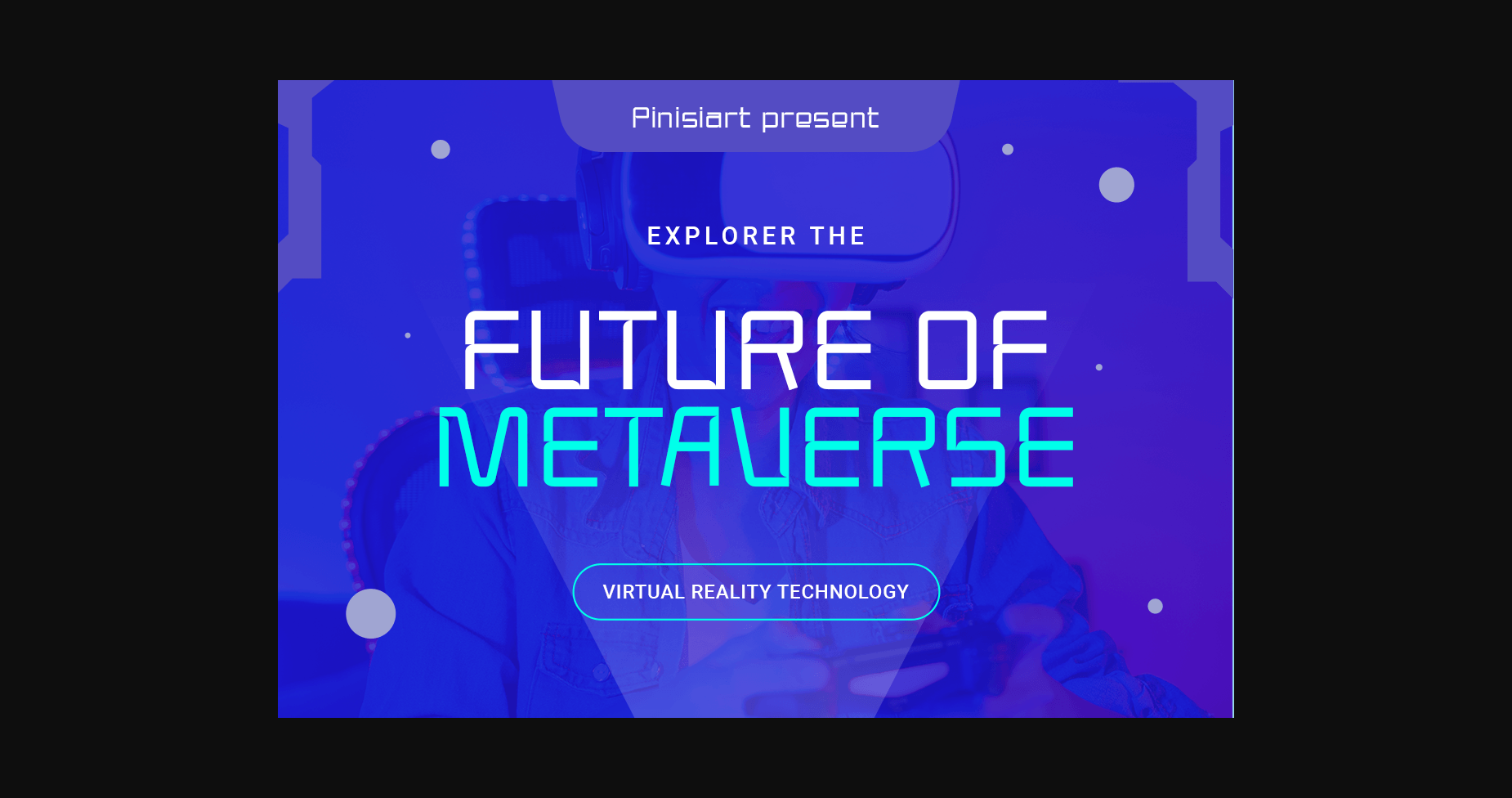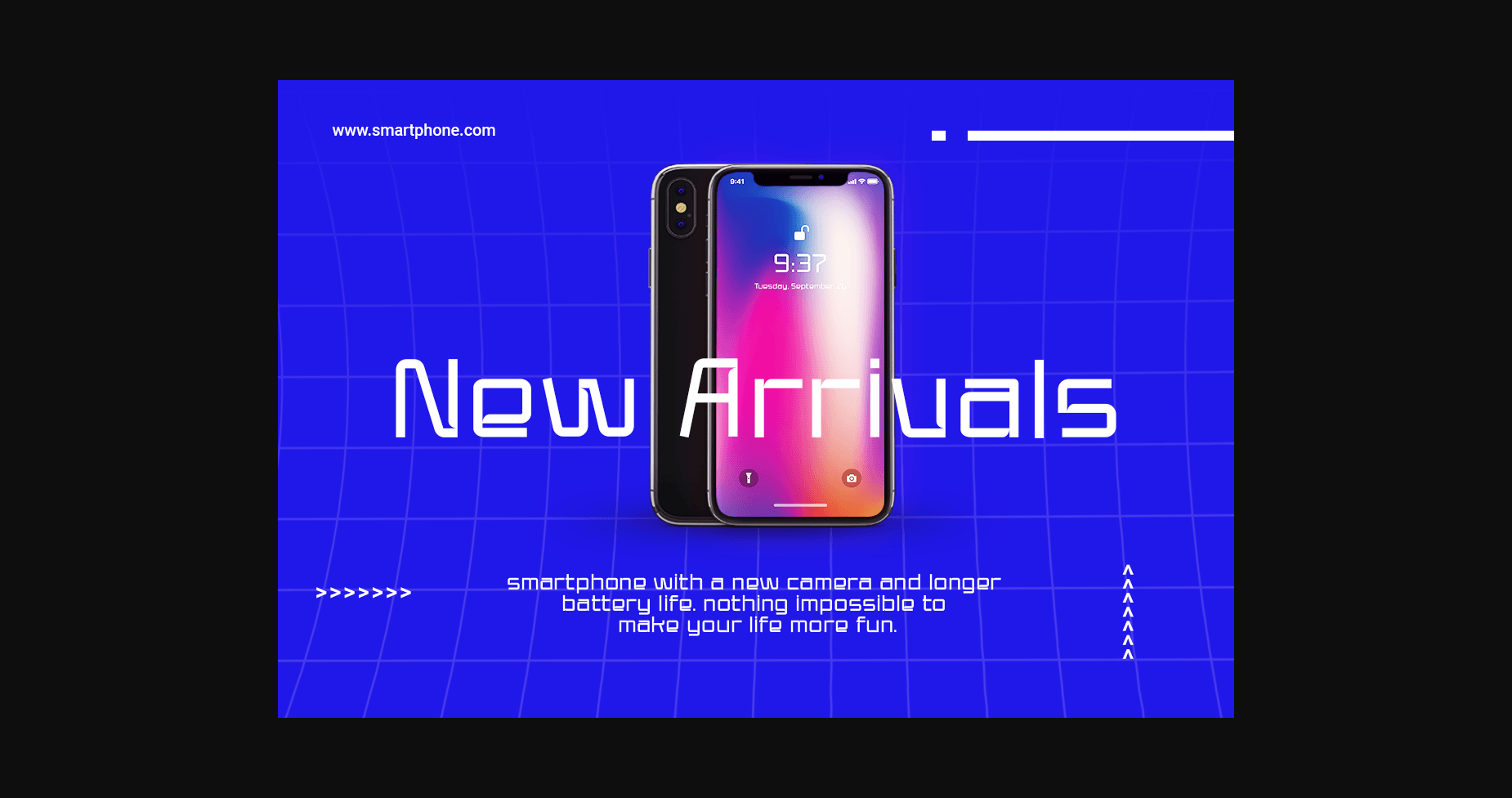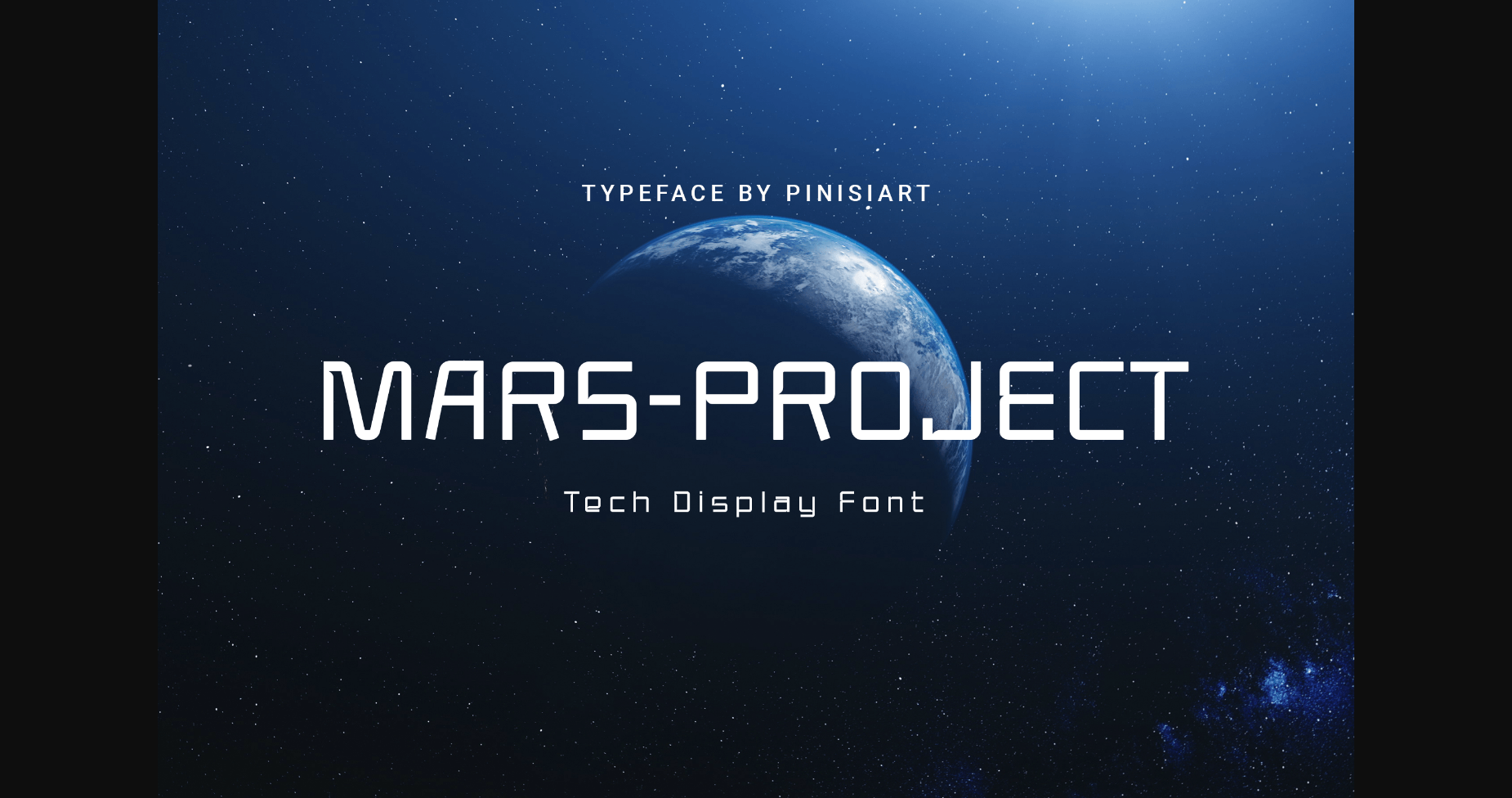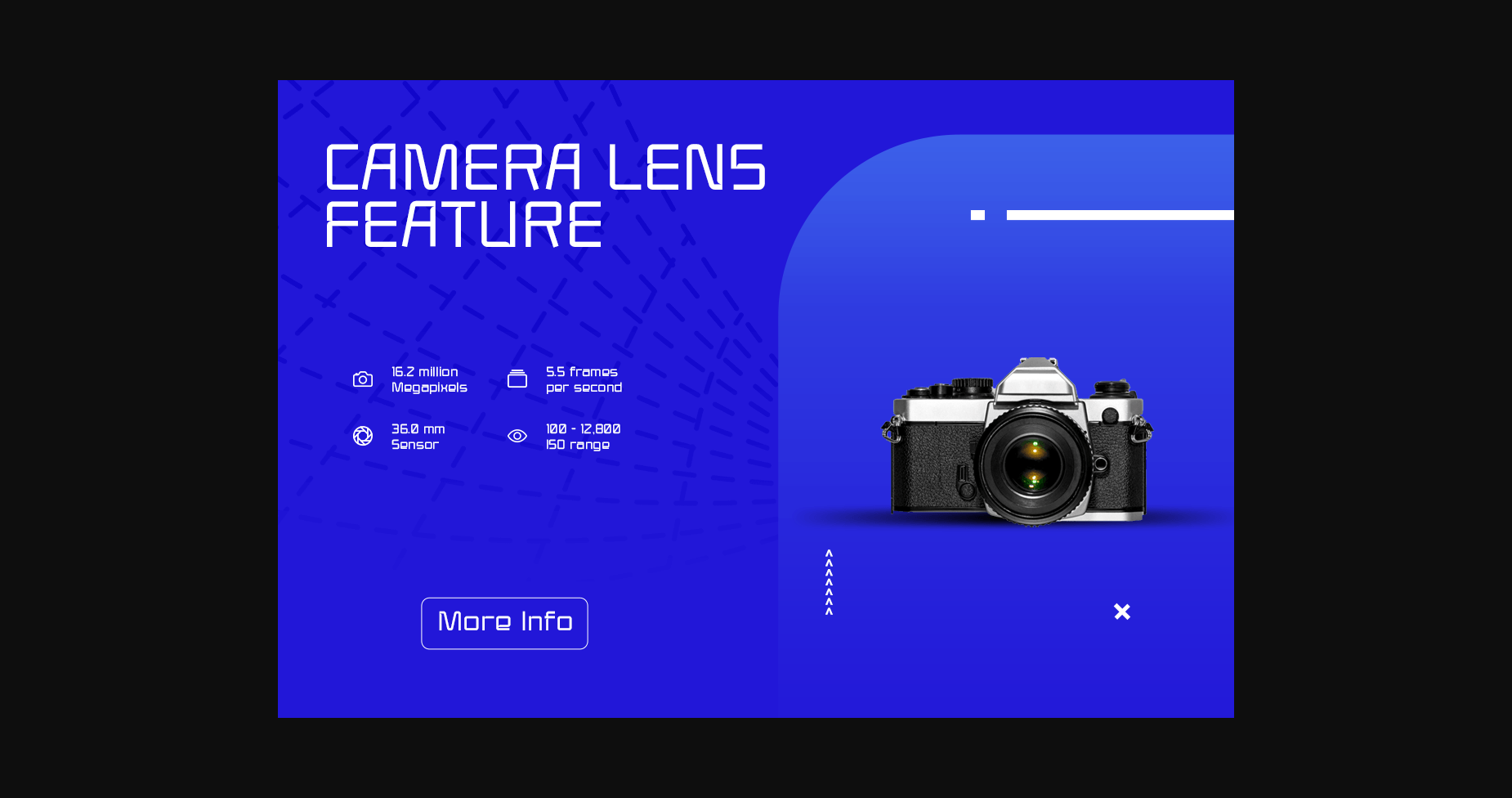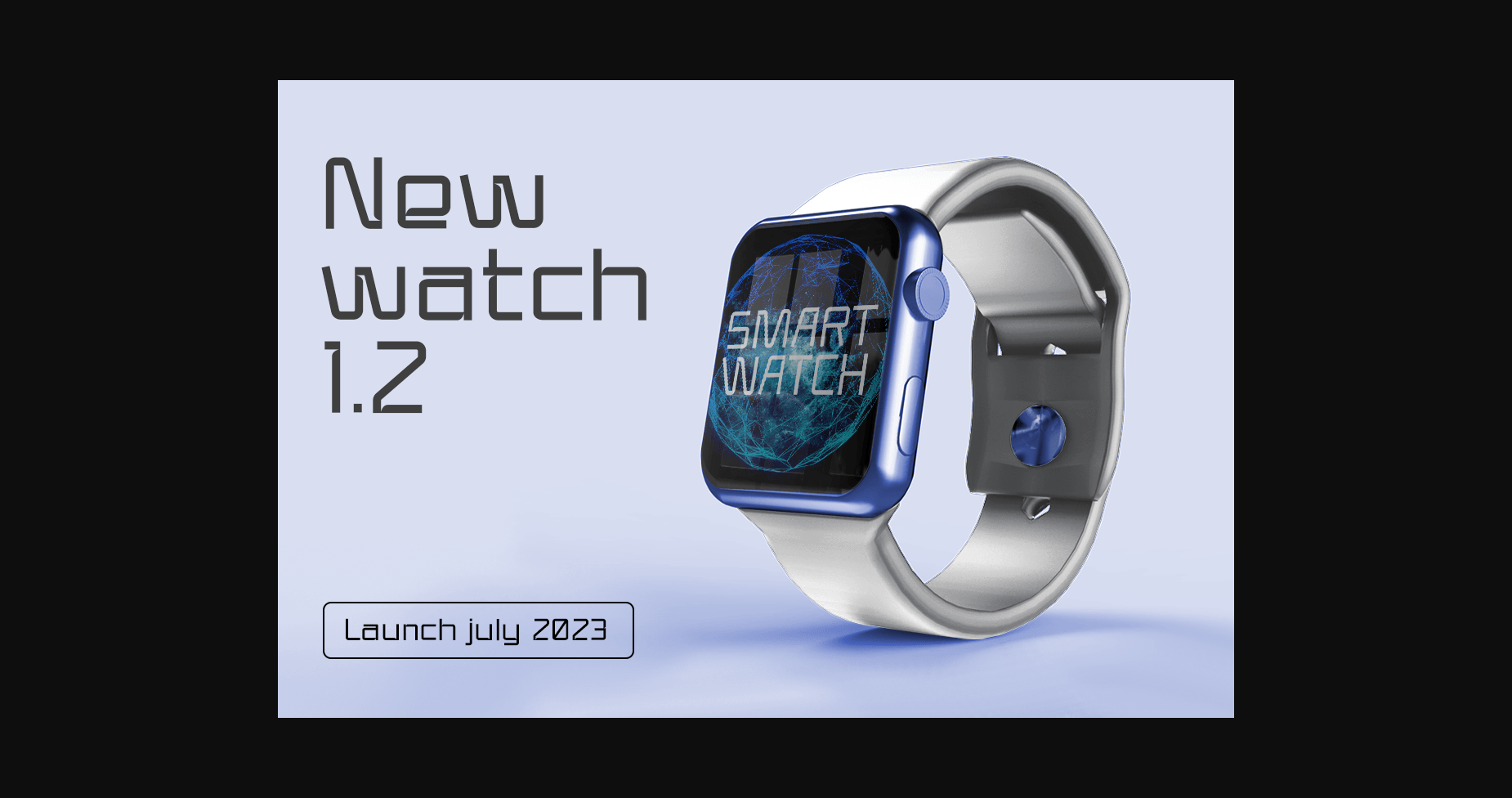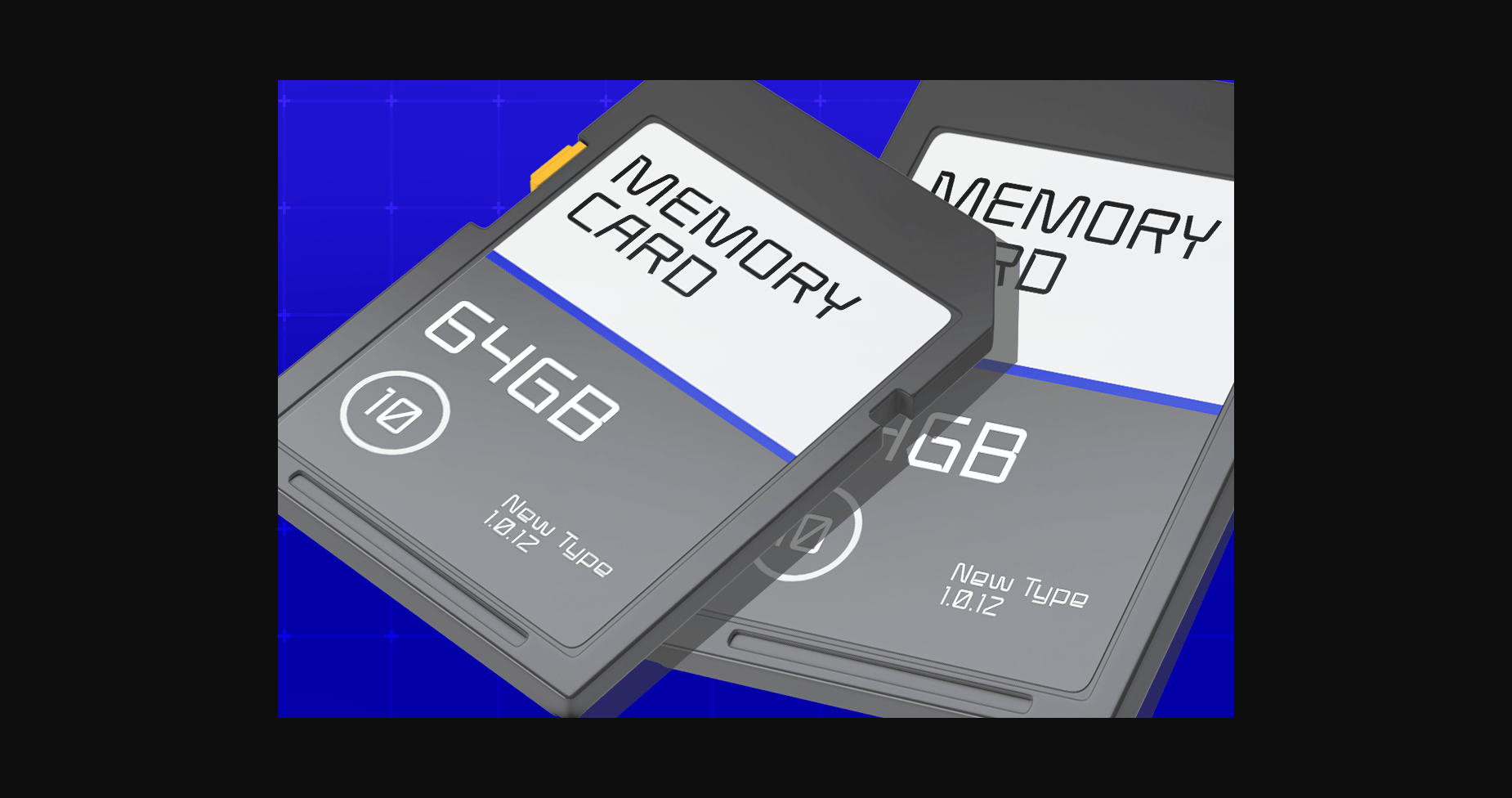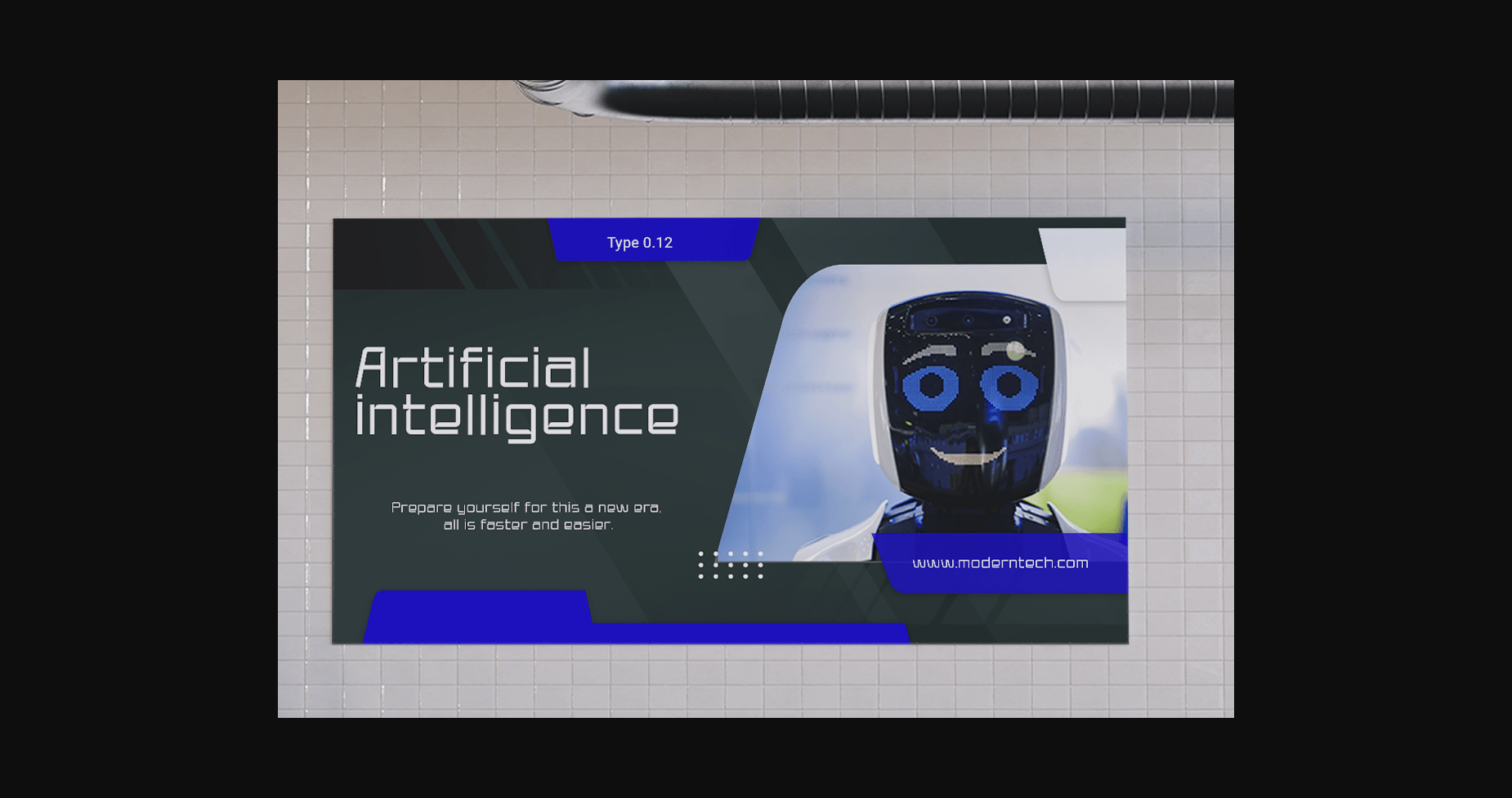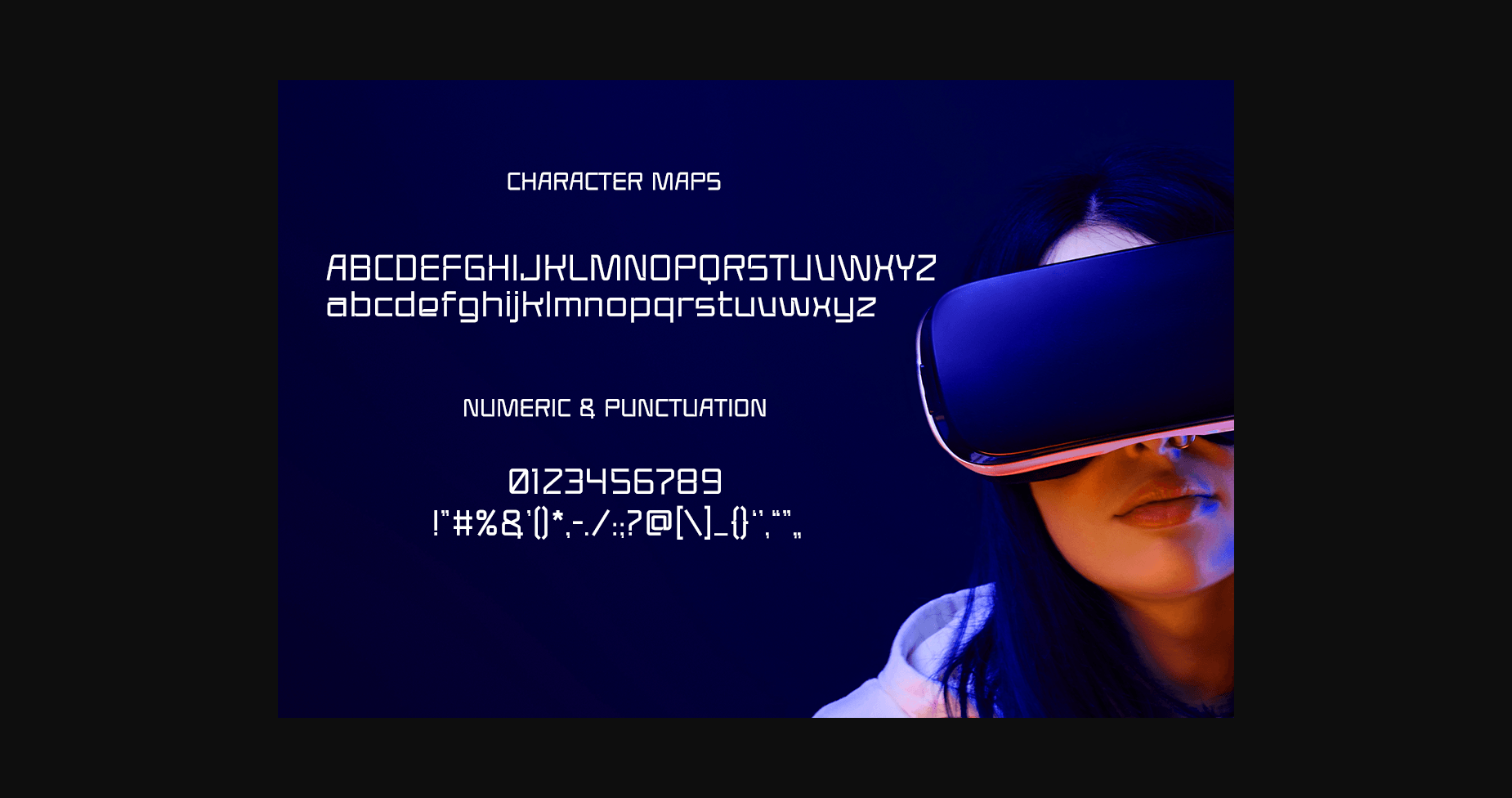
Mars Project Font
About Mars Project Font
Mars Project is a futuristic font, a font inspired by the visual of technology that we can find in logos, sci-fi movies, games, and the present gadgets. Designed with minimalist style and unique letterforms, a perfect choice to use on logos, labels, posters, packaging, books, movies, presentations, games, and much more! is complete with some elegant touch that will give your design a more futuristic and dynamic look.